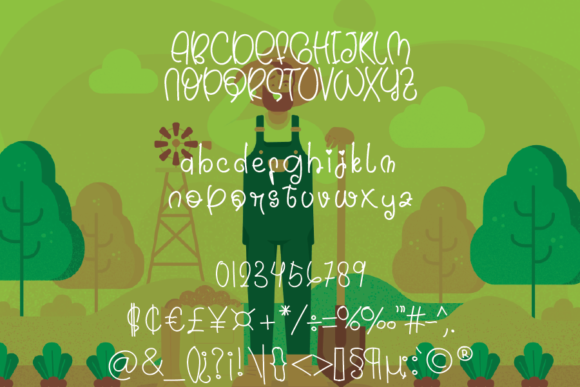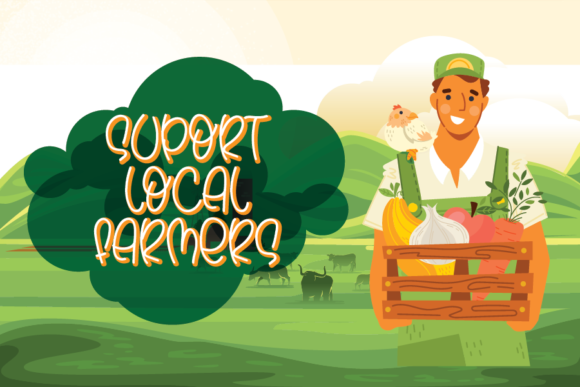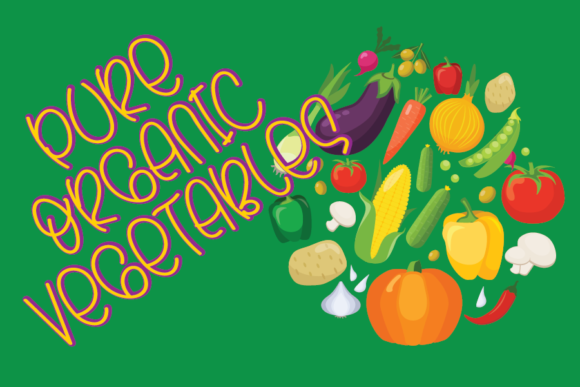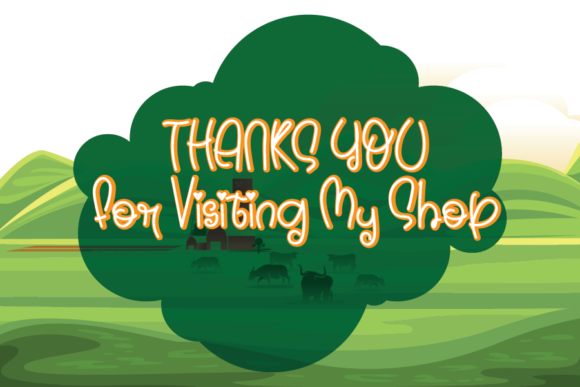
Introducing Bonipe Farming Font: A Whimsical and Modern Handwritten Font
Are you a designer or crafter looking for a unique and eye-catching font to elevate your designs? Look no further than Bonipe Farming Font, a cute, thin lettered, and quirky handwritten font that’s sure to transport your designs to a magical world. In this article, we’ll dive into the features and benefits of Bonipe Farming Font, and explore how it can add a touch of whimsy and modernity to your creative projects.
A Modern yet Whimsical Style
Bonipe Farming Font boasts a modern yet whimsical style that’s perfect for designers and crafters who want to add a touch of personality to their work. The font’s thin letters and quirky handwriting style give it a playful and carefree feel, while its modern aesthetic ensures it remains versatile and suitable for a wide range of design applications.
Whether you’re working on a branding project, creating social media graphics, or designing invitations and stationery, Bonipe Farming Font is the perfect choice. Its unique and eye-catching style makes it ideal for:
- Logos and branding: Add a touch of personality to your brand with a custom logo or typography.
- Social media graphics: Stand out on social media with eye-catching graphics and quotes.
- Invitations and stationery: Add a touch of whimsy to your invitations, cards, and letters.
- Packaging design: Make your product packaging stand out with a unique and memorable font.
Key Features of Bonipe Farming Font
So, what sets Bonipe Farming Font apart from other fonts? Here are some of its key features:
- Cute and quirky style: The font’s playful and whimsical style is sure to add a touch of personality to your designs.
- Thin lettered: The font’s thin letters give it a modern and elegant feel.
- Handwritten style: The font’s handwritten style adds a touch of warmth and personality to your designs.
- Modern aesthetic: The font’s modern aesthetic ensures it remains versatile and suitable for a wide range of design applications.
Tips for Using Bonipe Farming Font
To get the most out of Bonipe Farming Font, here are some tips for using it in your designs:
- Pair with bold fonts: Pair Bonipe Farming Font with bold fonts to create a striking contrast and add visual interest to your designs.
- Use in combination with images: Use Bonipe Farming Font in combination with images or illustrations to add a touch of personality to your designs.
- Experiment with colors: Experiment with different colors and textures to add depth and visual interest to your designs.
| Font Name | Bonipe Farming Font |
| Author | handwrittenwanda |
In conclusion, Bonipe Farming Font is a unique and eye-catching font that’s perfect for designers and crafters who want to add a touch of whimsy and modernity to their designs. With its cute, thin lettered, and quirky handwritten style, this font is sure to transport your designs to a magical world. Whether you’re working on a branding project, creating social media graphics, or designing invitations and stationery, Bonipe Farming Font is the perfect choice.